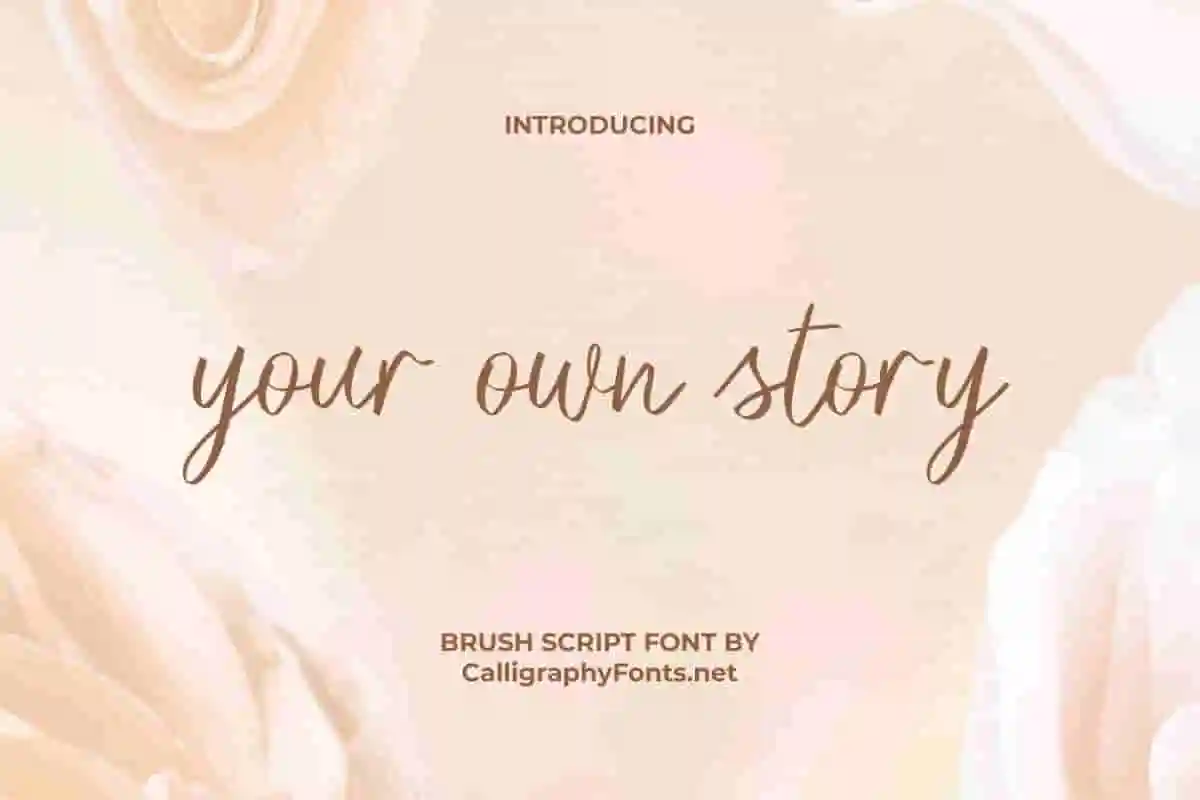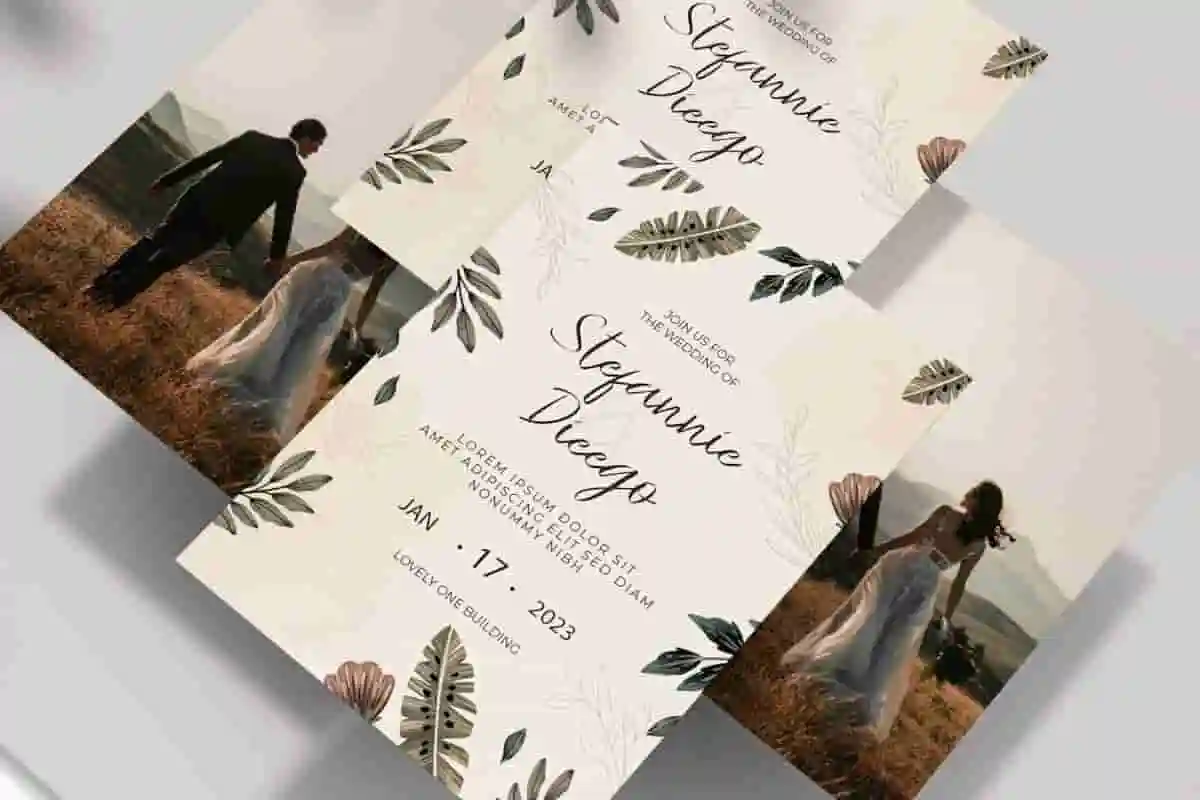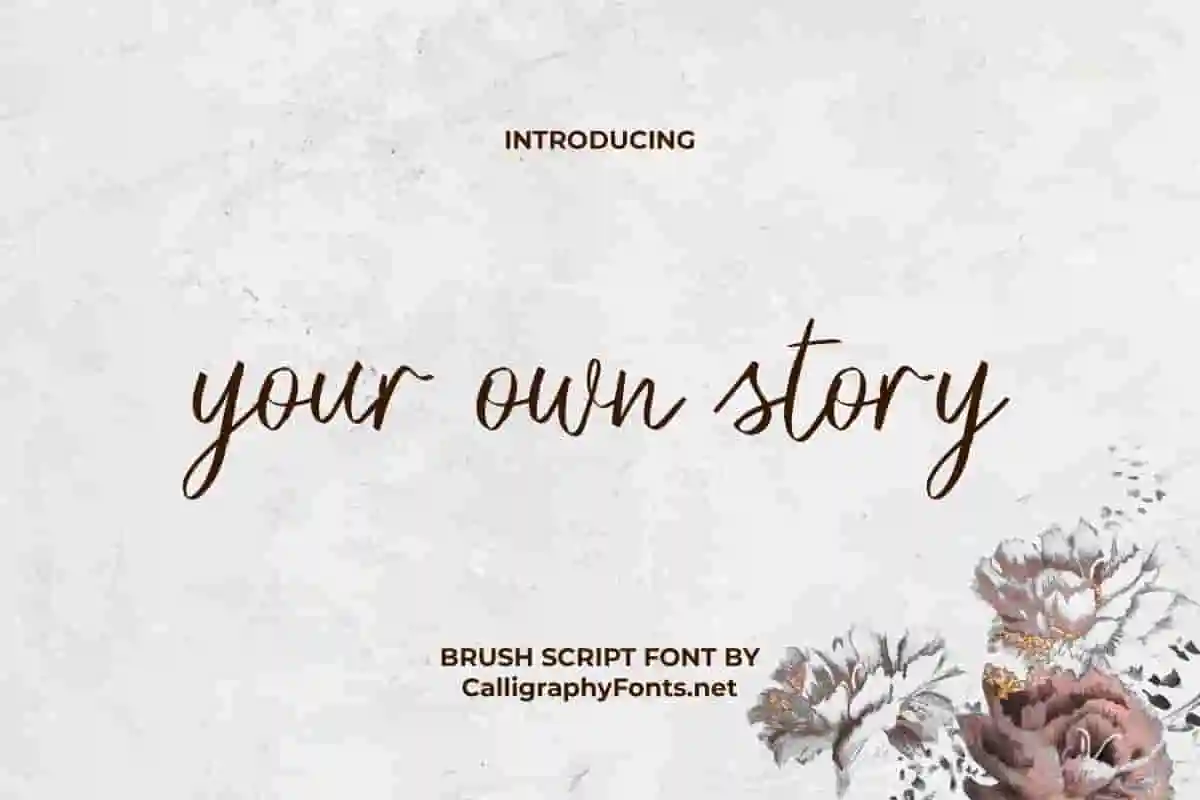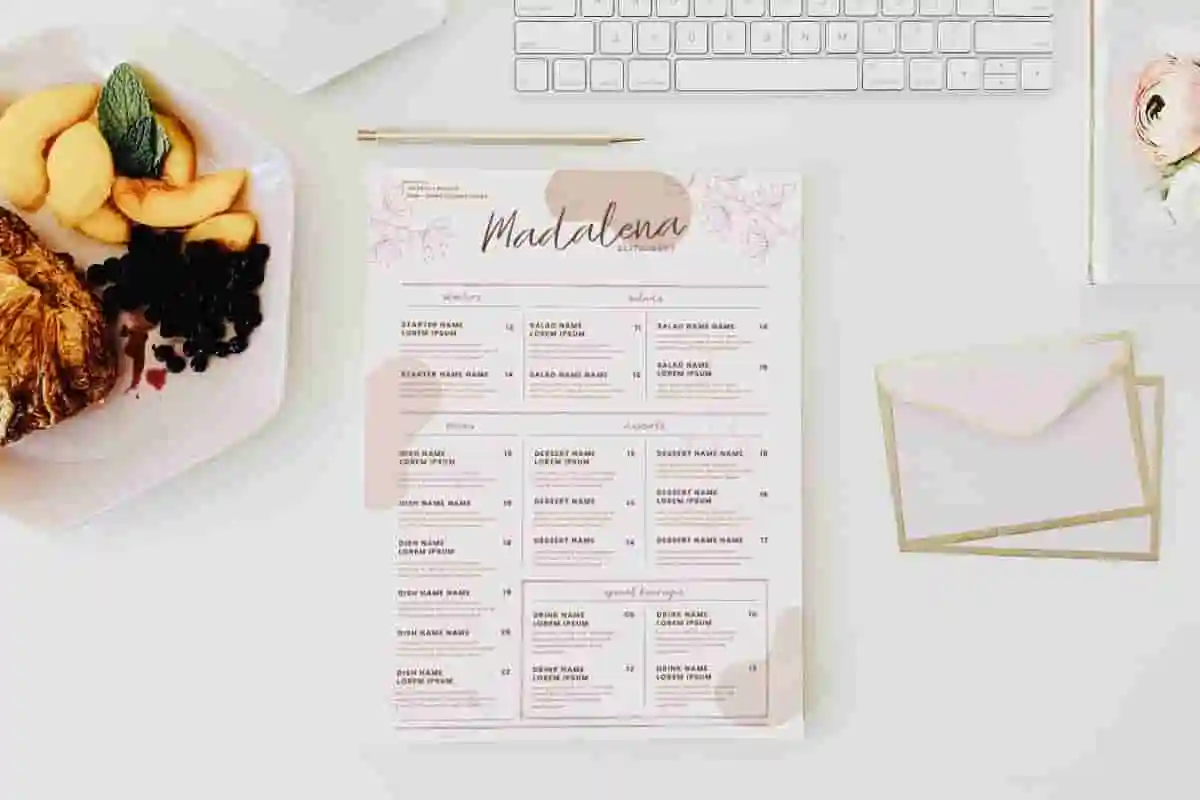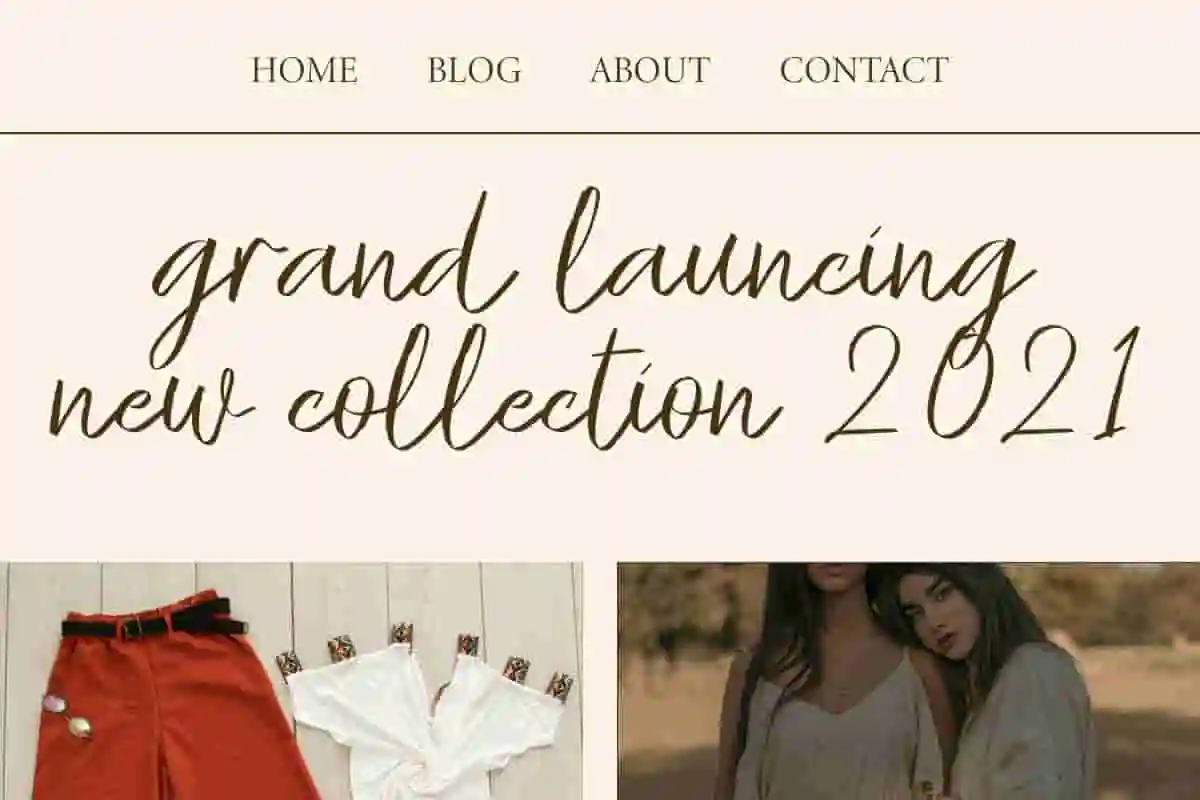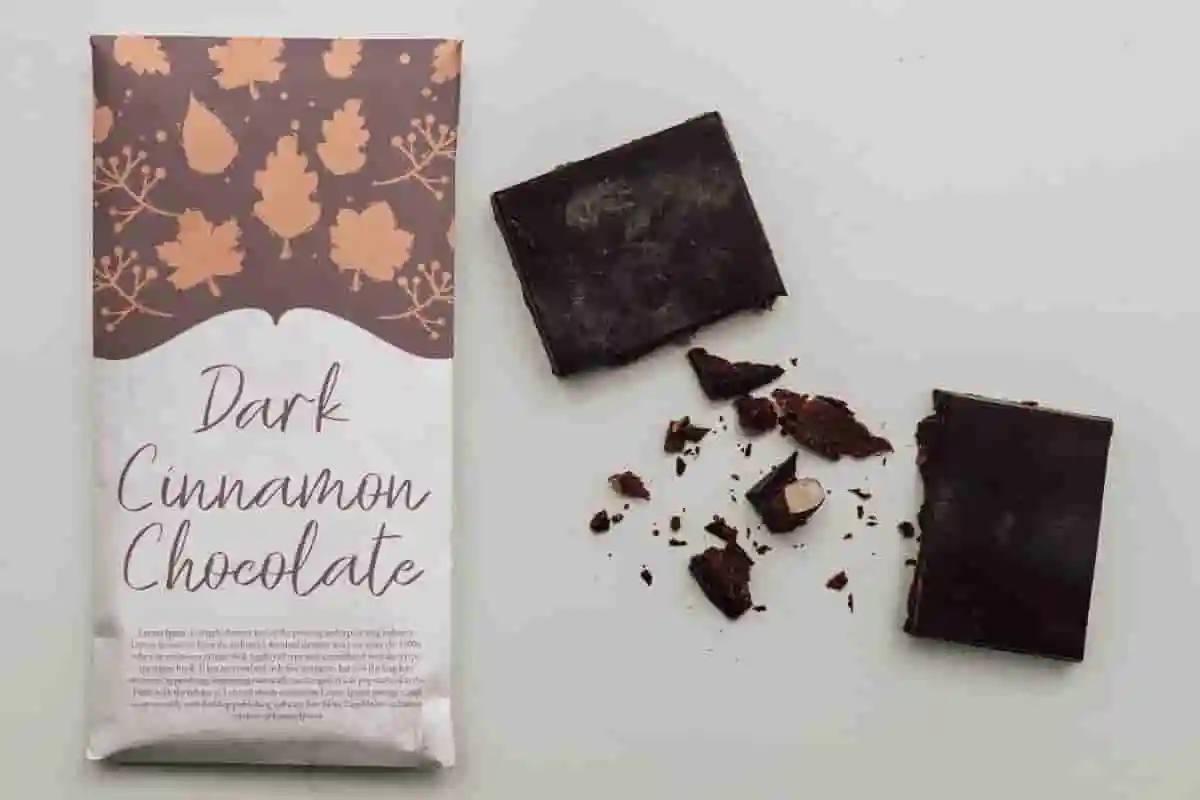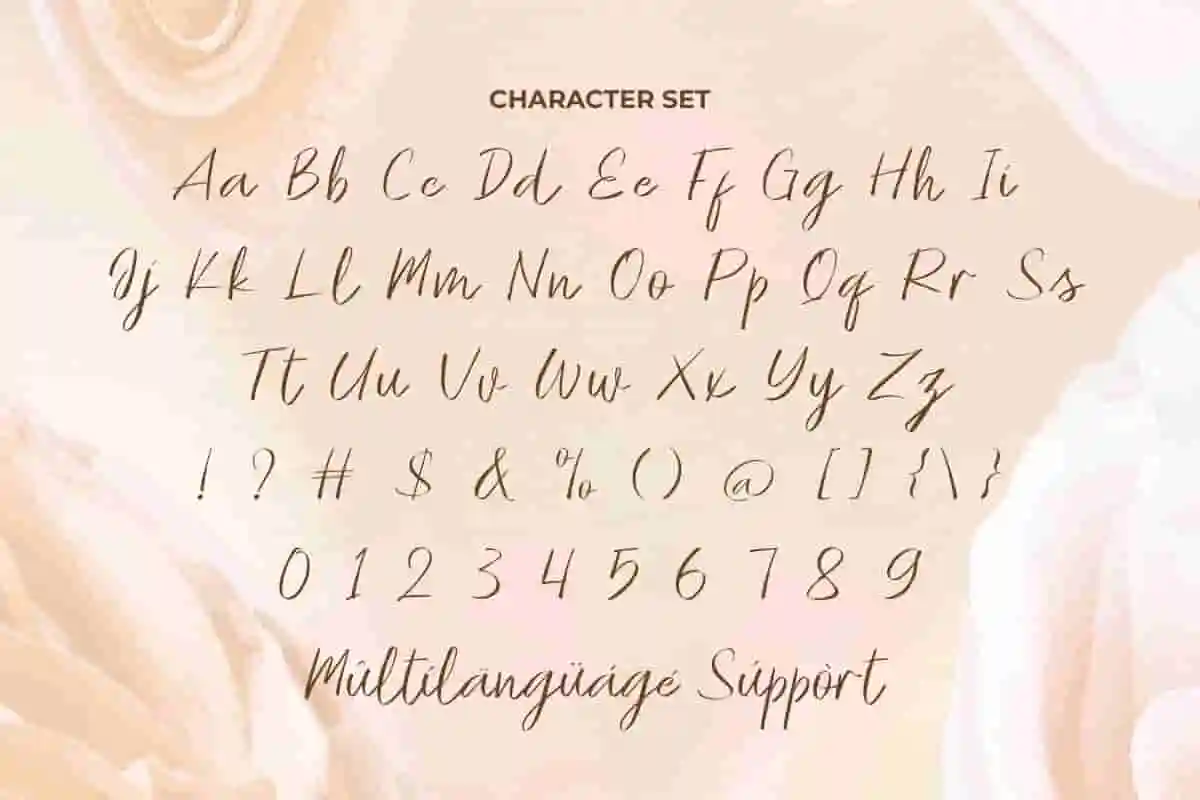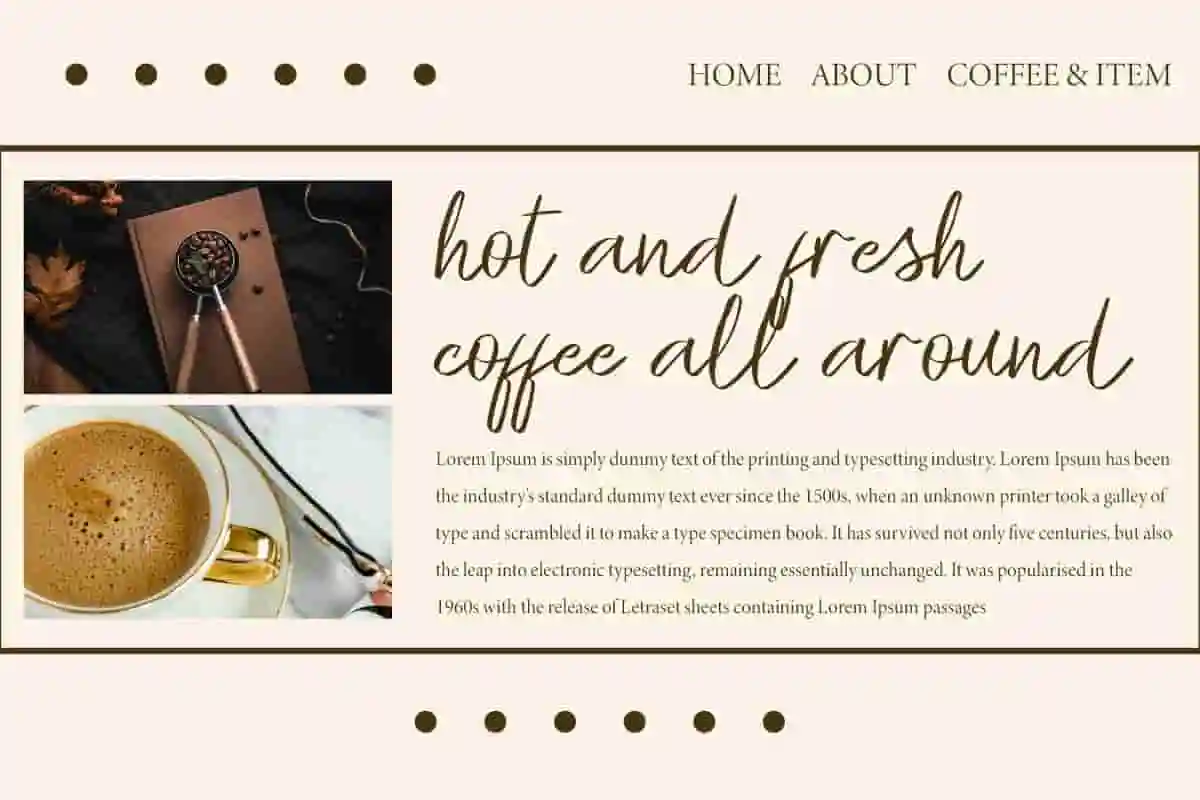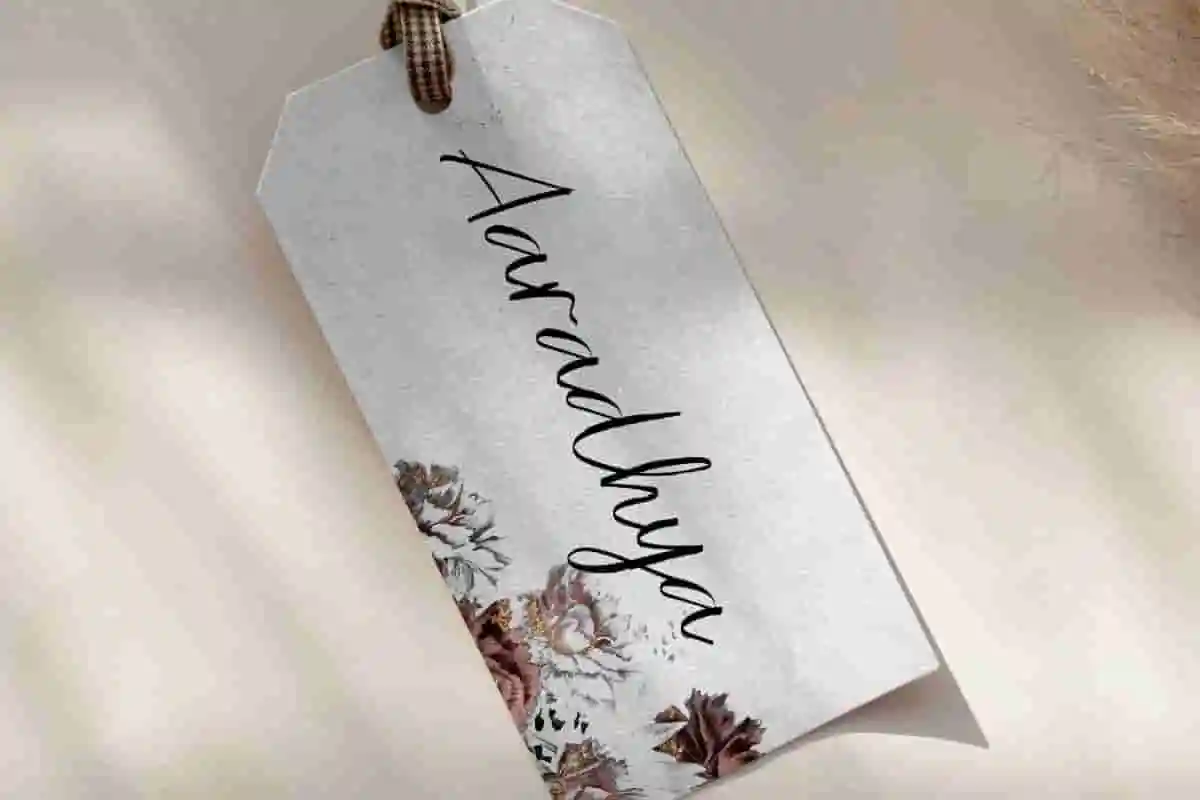
Your Own Story Brush Font
Your Own Story Font is a stylish handwritten font by brush script that will instantly beautify your designs. Use this font in your design projects and see the stunning and perfect changes it will make!
Your Own Story Font is an incredibly elegant handwritten font with a beautiful brush script style. This versatile typeface adds a distinctive touch to your designs, such as blogs, branding logo, brochure, card design, flyer, headings, headline, invitations, label tag, logos, menu, mockup, packaging, posters, quotes, stationery, stickers, title, websites, or anything.
Looking for a bold, expressive font that turns heads and tells a story? Your Own Story Brush Font is a handcrafted brush font designed to add raw emotion, creative edge, and bold character to any design. Whether you’re working on branding, social media graphics, posters, packaging, or merchandise, this brush script font delivers the impact you need.
Introducing Your Own Story Brush Font, a bold and expressive hand-brushed font designed to make your words pop with personality. Whether you’re working on branding, merchandise, posters, social media, or creative projects, this brush font delivers energy, emotion, and authenticity. Give your words a voice with Your Own Story Brush Font — a handcrafted brush script font created to add boldness, creativity, and authentic energy to your designs.
Looking for a bold, handcrafted font that captures raw emotion and creative energy? Your Own Story Brush Font is the perfect choice for designers, artists, and brands who want their message to stand out and connect. Crafted with real brush strokes and detailed textures, this font brings an organic, expressive feel to every project.
- Authentic hand-brushed style
- Multilingual support
Your Own Story Font is an attractive minimalist handwritten font in a brush script style. It produces a very natural handwritten style in a simple form but still looks stylish and classy in its way that adds an elegant look to any handwritten font collection. Suitable for advertising, apparel, bridal boutique, cafes, event organizer, fashion, graphic design, photography, restaurant, wedding, and more.